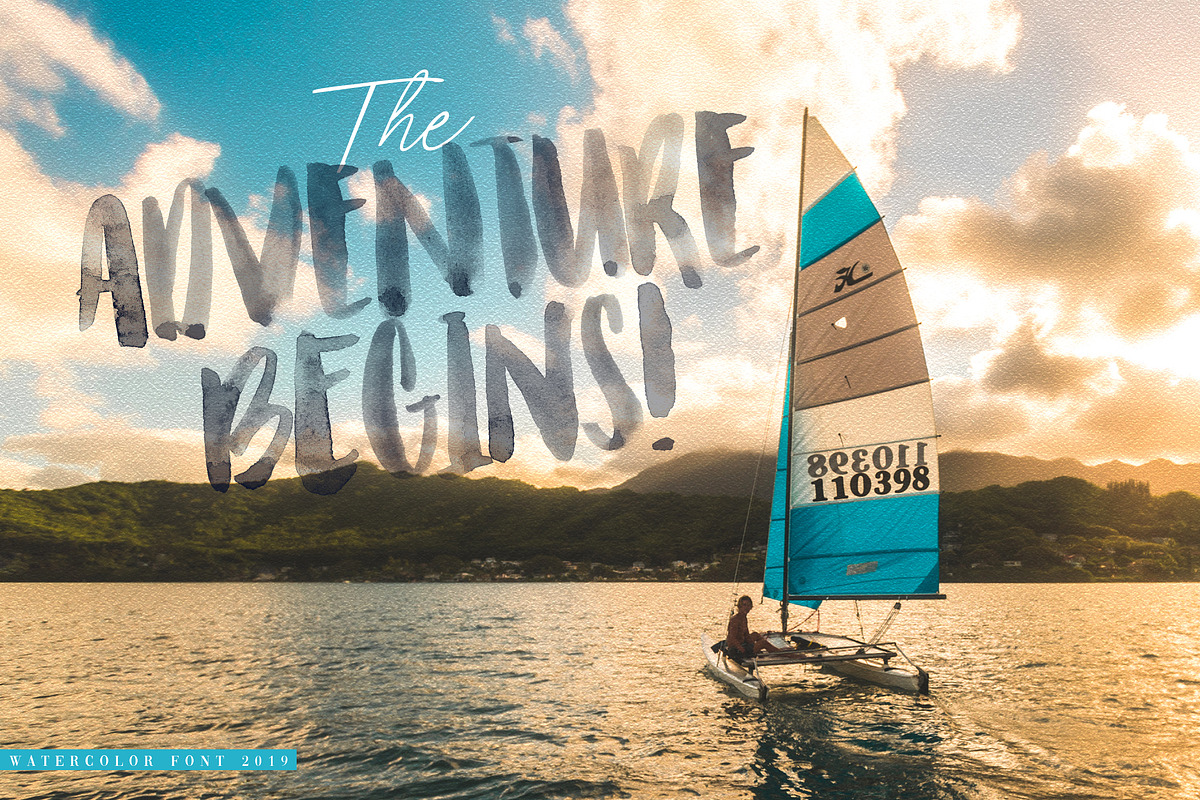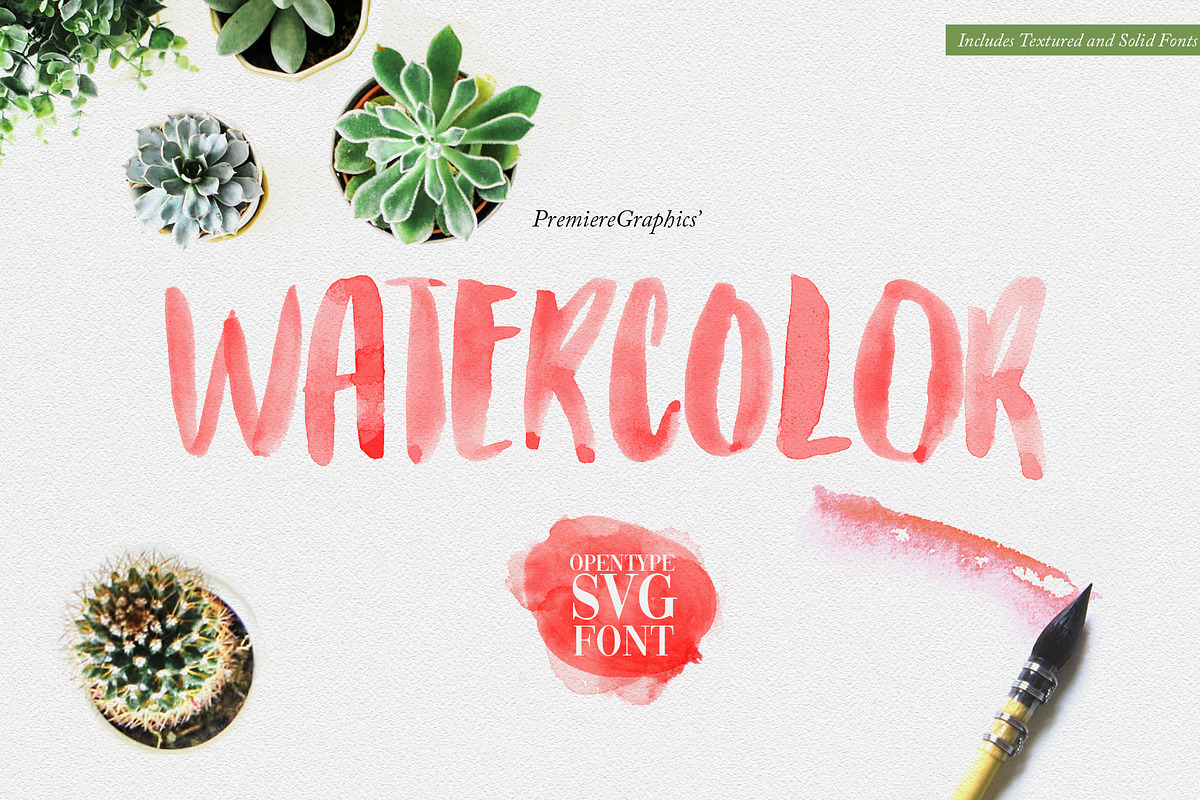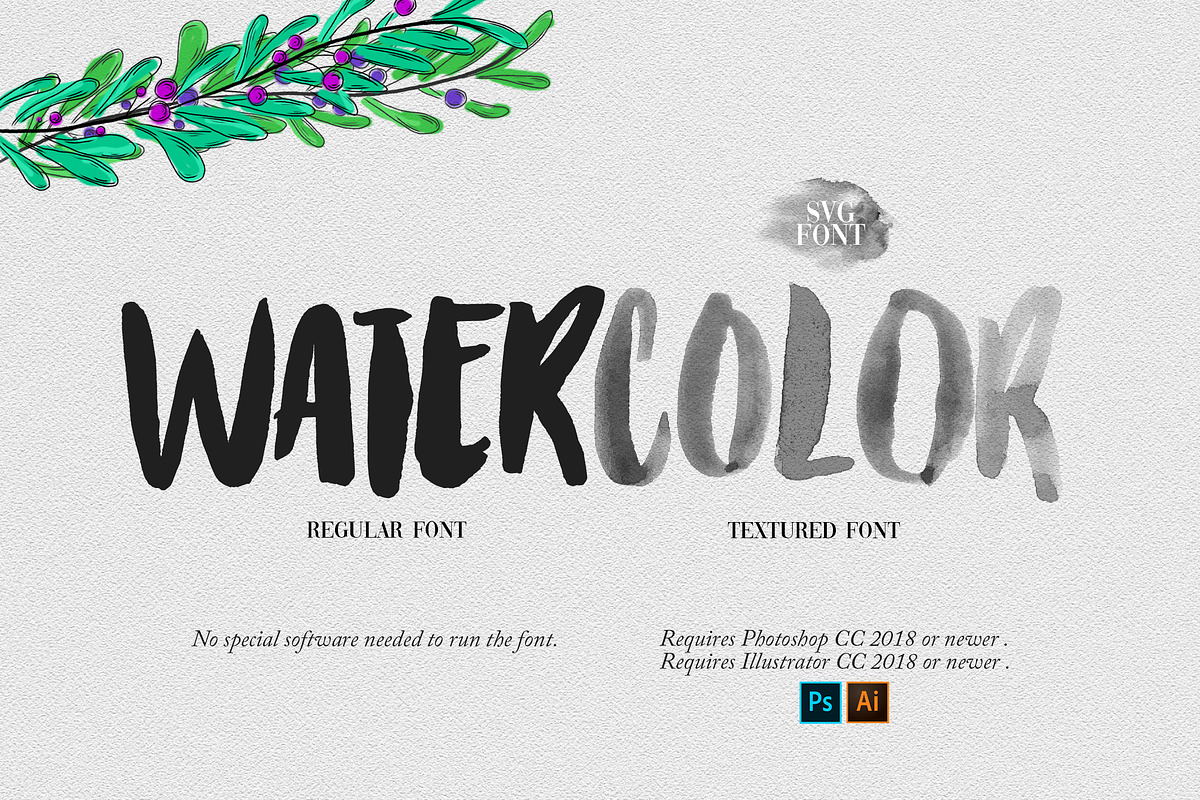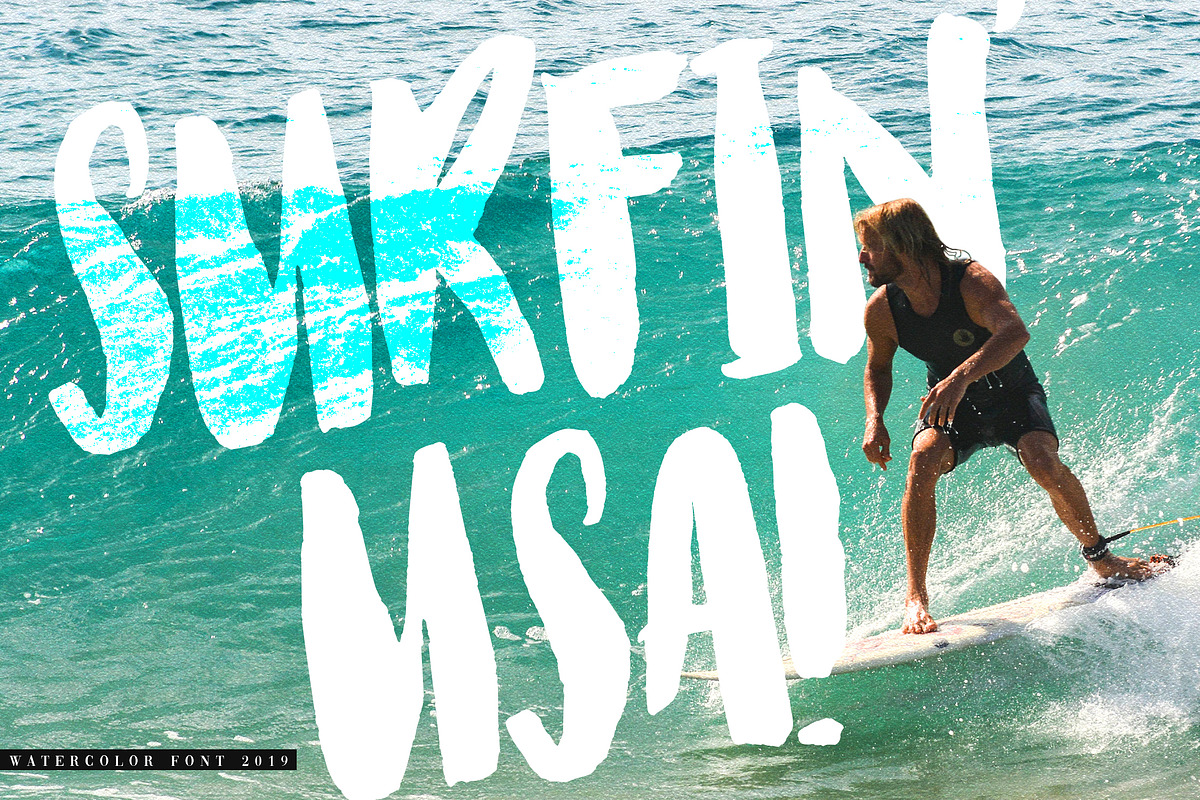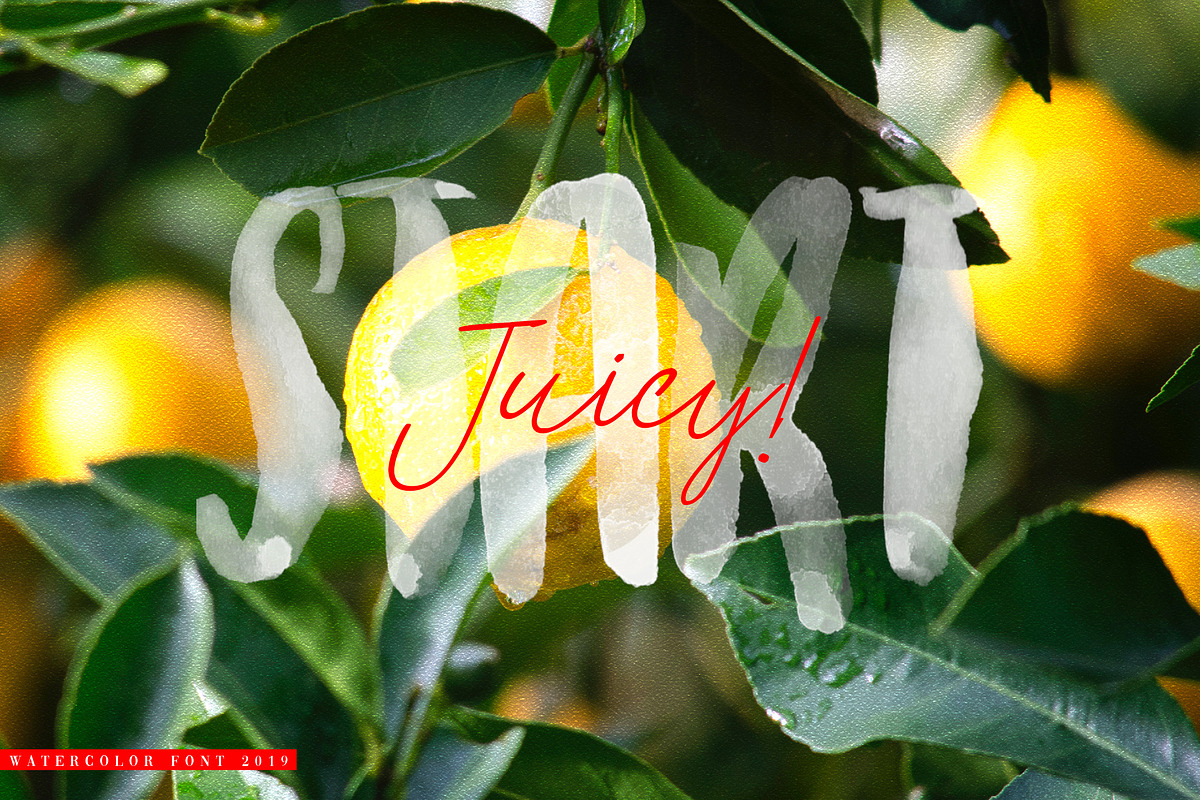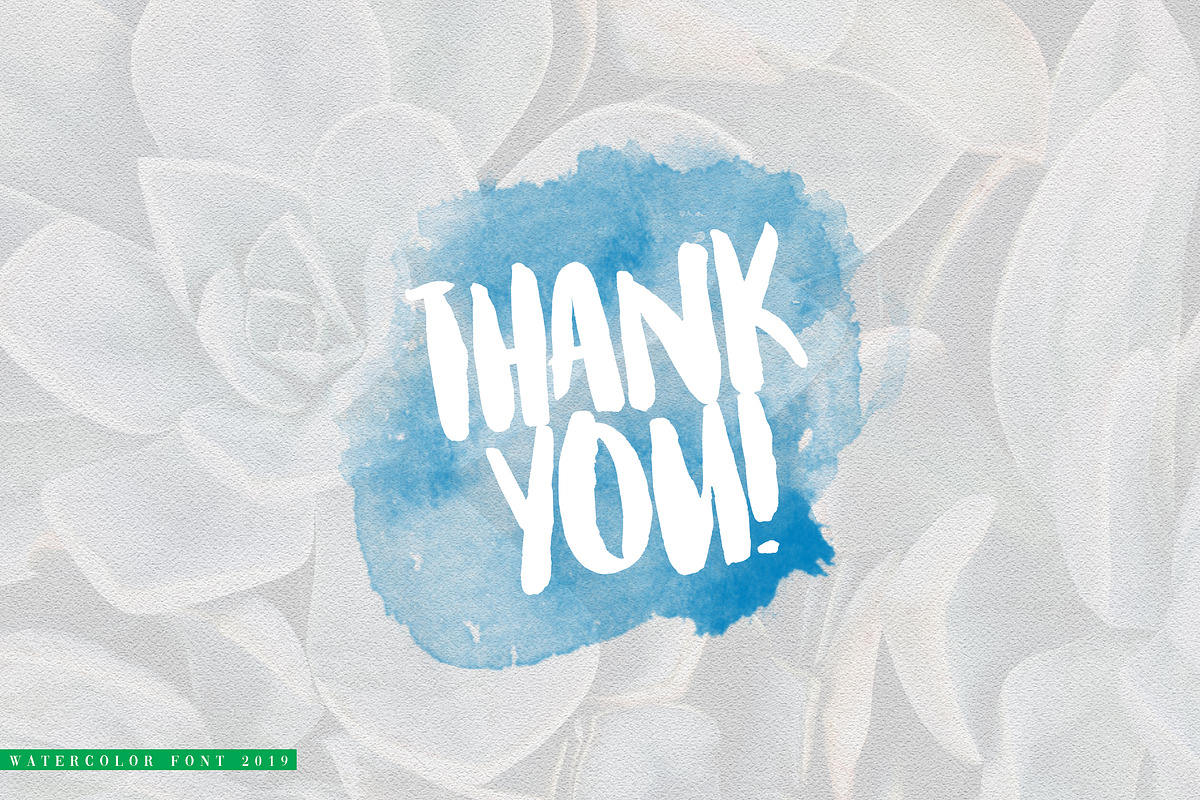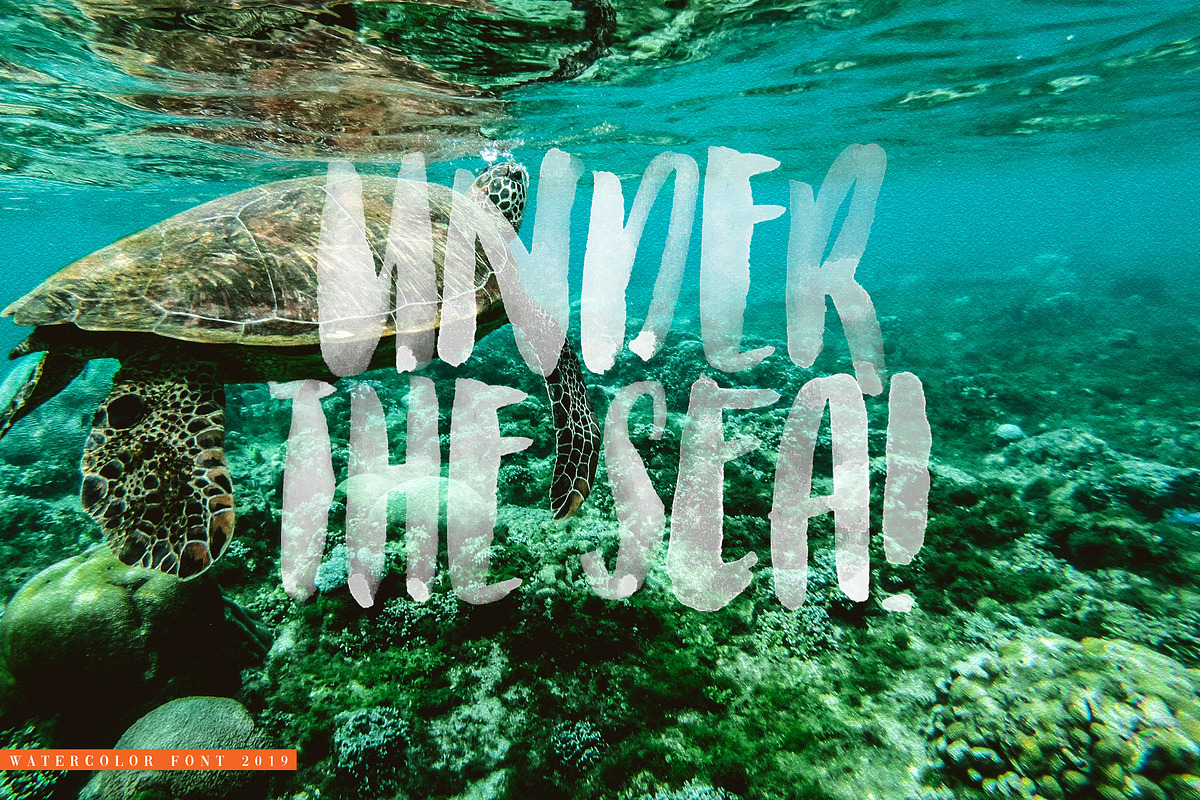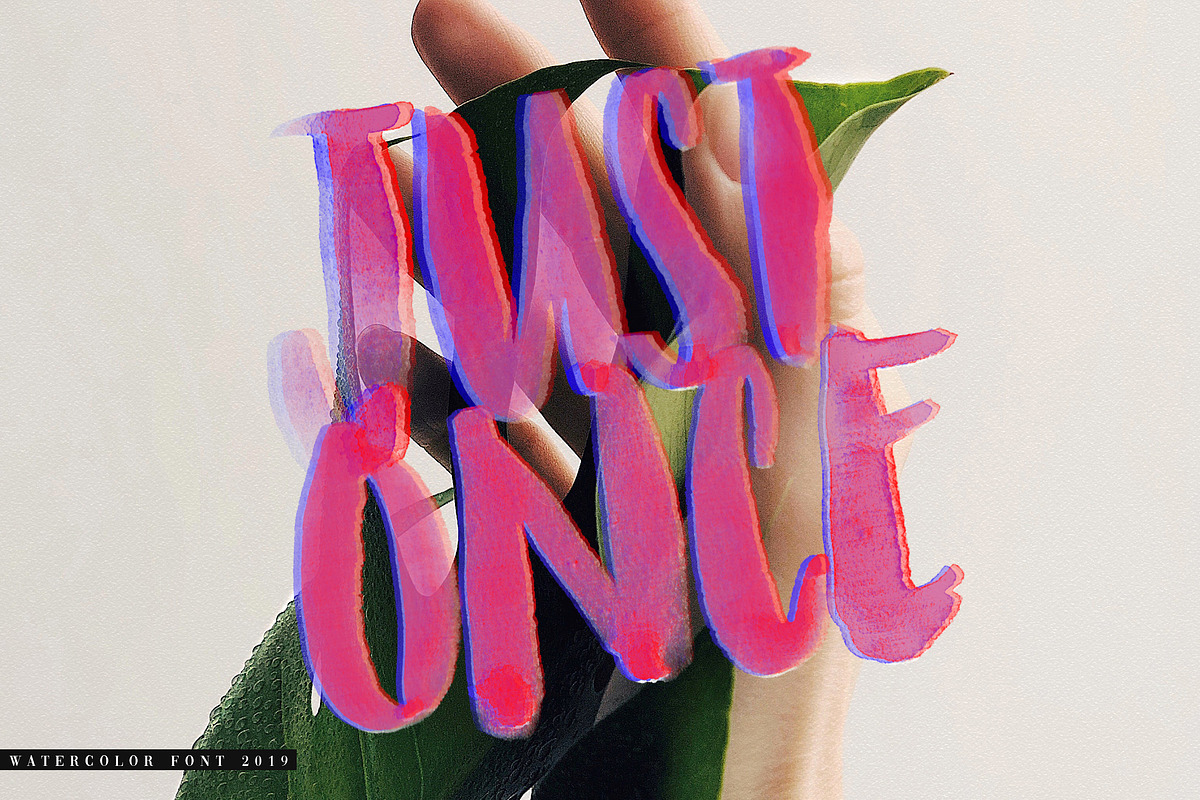
Watercolor Opentype-SVG Font
Watercolor SVG Font is the most literal font of all! From its name, to its style, and to its realistic texture. The Watercolor font is the very first SVG font offering from PremiereGraphics. The purpose of the font is to get that watercolor effect on your project without much effort, just select the SVG font and start typing all you want! The font is perfect for logo, branding, photography, blogs, videos, weddings, sports, and many others! This font also makes a great complement to script fonts.
The font includes a textured font, which is the Opentype-SVG font and also a Regular Solid font which is accessible through any software that uses font files.
Watercolor Opentype-SVG Font by Ryn Pojas fits naturally into Branding, posters, packaging, typography.